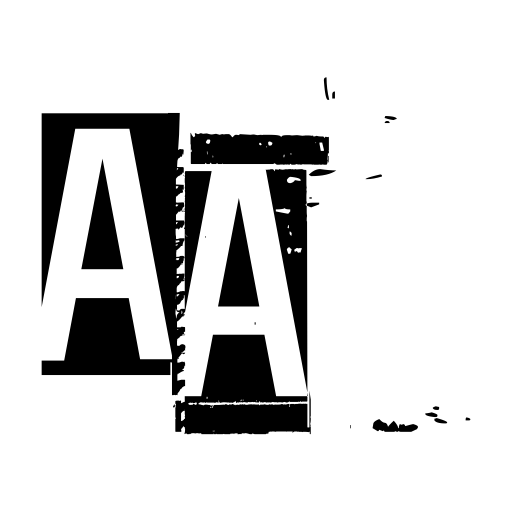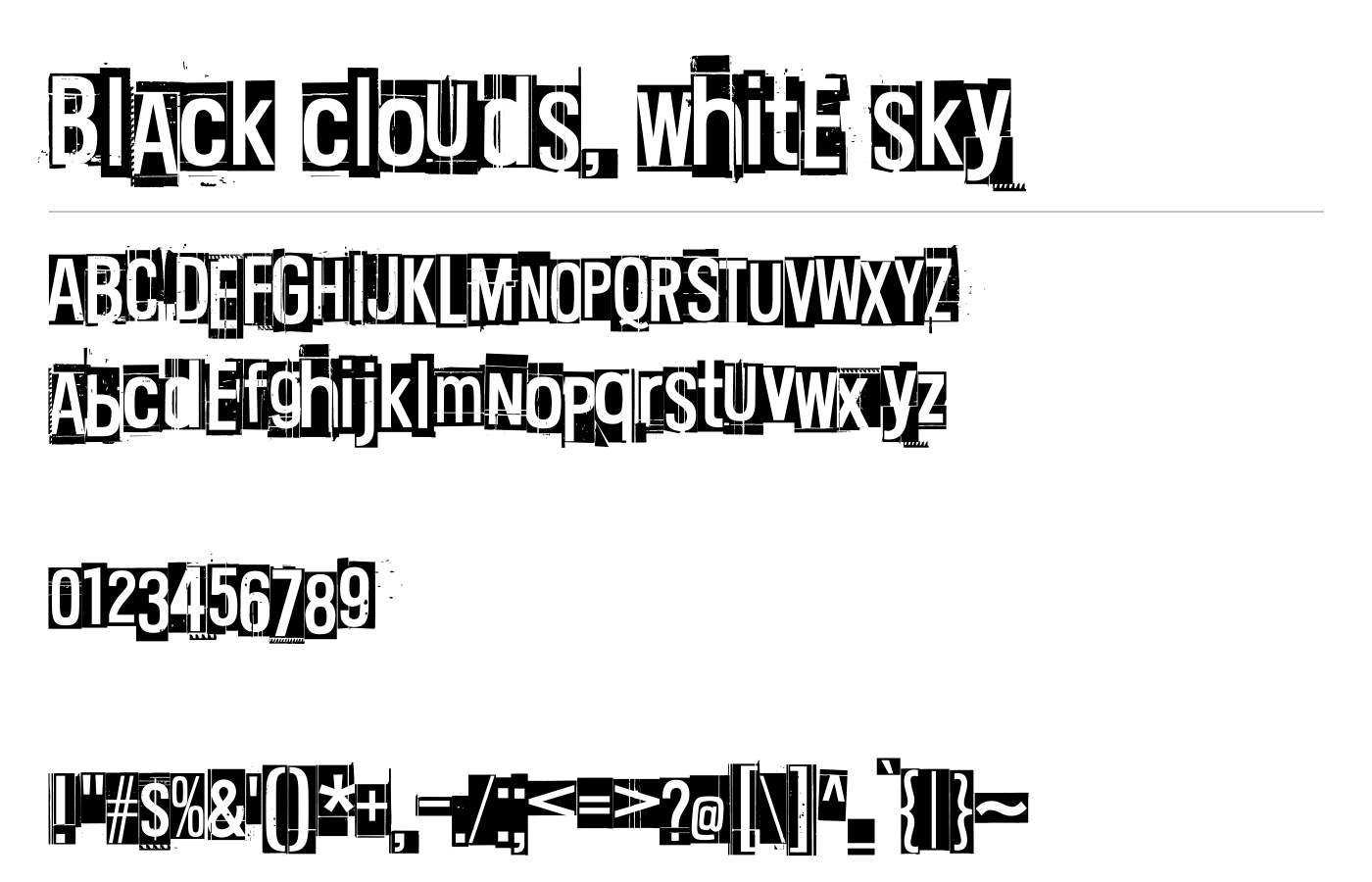
Black clouds, white sky is an experimental sans serif font characterized by its bold, blocky letterforms layered with distressed textures that create a gritty, urban feel. The overlapping black and white elements give it a chaotic yet striking appearance, making it ideal for attention-grabbing headlines, posters, and creative branding that seeks to convey a raw, edgy, and contemporary mood. This font works best in artistic or street-inspired designs where a strong visual impact is desired.
Black clouds, white sky Font
About Black clouds, white sky Font
| Font family | Black clouds, white sky Font |